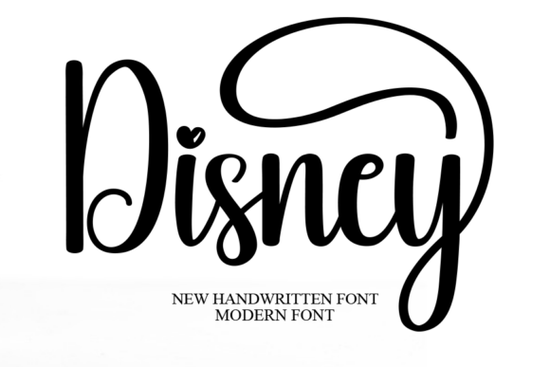
If you're looking for a script font that feels instantly familiar yet fresh something that brings warmth, playfulness, and a touch of childhood magic to your designs the Disney Font is worth your attention. It’s not a licensed Disney product, but its joyful, hand-drawn personality echoes the spirit of classic animation: rounded forms, expressive loops (like the big curl over the ‘D’), and a tiny heart dot replacing the usual dot on the ‘i’. Designed with clarity in mind, it stays legible even at smaller sizes unlike some overly decorative scripts and includes swashes and alternates that add personality without sacrificing usability.
Who is this font really for?
This isn’t just for birthday banners or cartoon-themed stickers. Designers working on children’s book covers often need fonts that feel personal and inviting not stiff or overly formal. Crafters making custom mugs, tote bags, or nursery wall art find that the Disney Font adds sincerity and charm without looking dated. Print-on-demand sellers use it for themed collections (think “Princess Party,” “Adventure Awaits,” or “Storytime Magic”) because it pairs well with soft watercolor backgrounds or clean minimalist layouts. Small businesses launching a new line of handmade baby blankets or organic kids’ snacks also appreciate how gently nostalgic it feels evoking comfort, safety, and imagination, not loud branding.
How does it compare to other playful script fonts?
It sits comfortably between ultra-casual scribbles and refined calligraphy. Unlike the bouncy, uneven energy of Children’s Scribbles Font, the Disney Font has consistent weight and rhythm making it easier to pair with sans-serif body text. Compared to the elegant flourishes of Andalusia Calligraphy Font, it’s friendlier and more approachable. And while Belgia Calligraphy Font leans into European sophistication, the Disney Font keeps things light and inclusive no sharp edges, no rigid structure.
You’ll also notice it shares some DNA with Preppy Berry Font both have cheerful bounce and accessible letterforms but where Preppy Berry leans into retro schoolroom charm, the Disney Font feels more timeless and storybook-inspired. If you’ve used Disney Font before, you know how smoothly it integrates into layered SVG files or Cricut projects. Its PUA encoding means all swashes and alternates appear reliably in design apps like Adobe Illustrator, Affinity Designer, or even Canva (with desktop app or upload workflow).
What kinds of projects work best with it?
- Party invitations especially for milestone birthdays, baby showers, or themed celebrations like “Enchanted Garden” or “Storybook Tea.”
- Personalized gifts think wooden name puzzles, embroidered onesies, or custom storybooks where the font becomes part of the narrative voice.
- Classroom or nursery decor alphabet posters, growth charts, or “Good Morning” signs that feel warm, not generic.
- Digital products printable planners with whimsical headers, Canva templates for educators, or Instagram story kits aimed at parents and early-childhood creators.
Because it’s built with clean curves and balanced spacing, it scales well from tiny tags on gift boxes to large-scale vinyl decals. Just avoid using it for long paragraphs or fine print; like most script fonts, it shines in short, intentional bursts. Pair it with a friendly sans-serif (like Quicksand, Nunito, or even Open Sans) for contrast and readability.
The Disney Font comes with standard OpenType features, including contextual alternates and swash capitals. You’ll get both uppercase and lowercase, plus numbers and basic punctuation. No ligatures or multilingual support but if your audience is primarily English-speaking and your use case centers around visual appeal rather than dense text, that’s rarely a limitation. Since it’s not a variable font, you won’t find weight or width sliders but the single weight is thick enough to hold up in print and digital, yet soft enough to avoid feeling heavy or aggressive.
If you’re building a seasonal collection say, spring-themed party supplies or summer camp branding it fits right in alongside fonts like Disney Font (yes, that’s the same one this is the official Creative Fabrica page for it) and other hand-drawn options. Just remember: consistency matters more than variety. One strong script font, used thoughtfully across your brand assets, builds recognition faster than rotating through five similar-looking fonts.